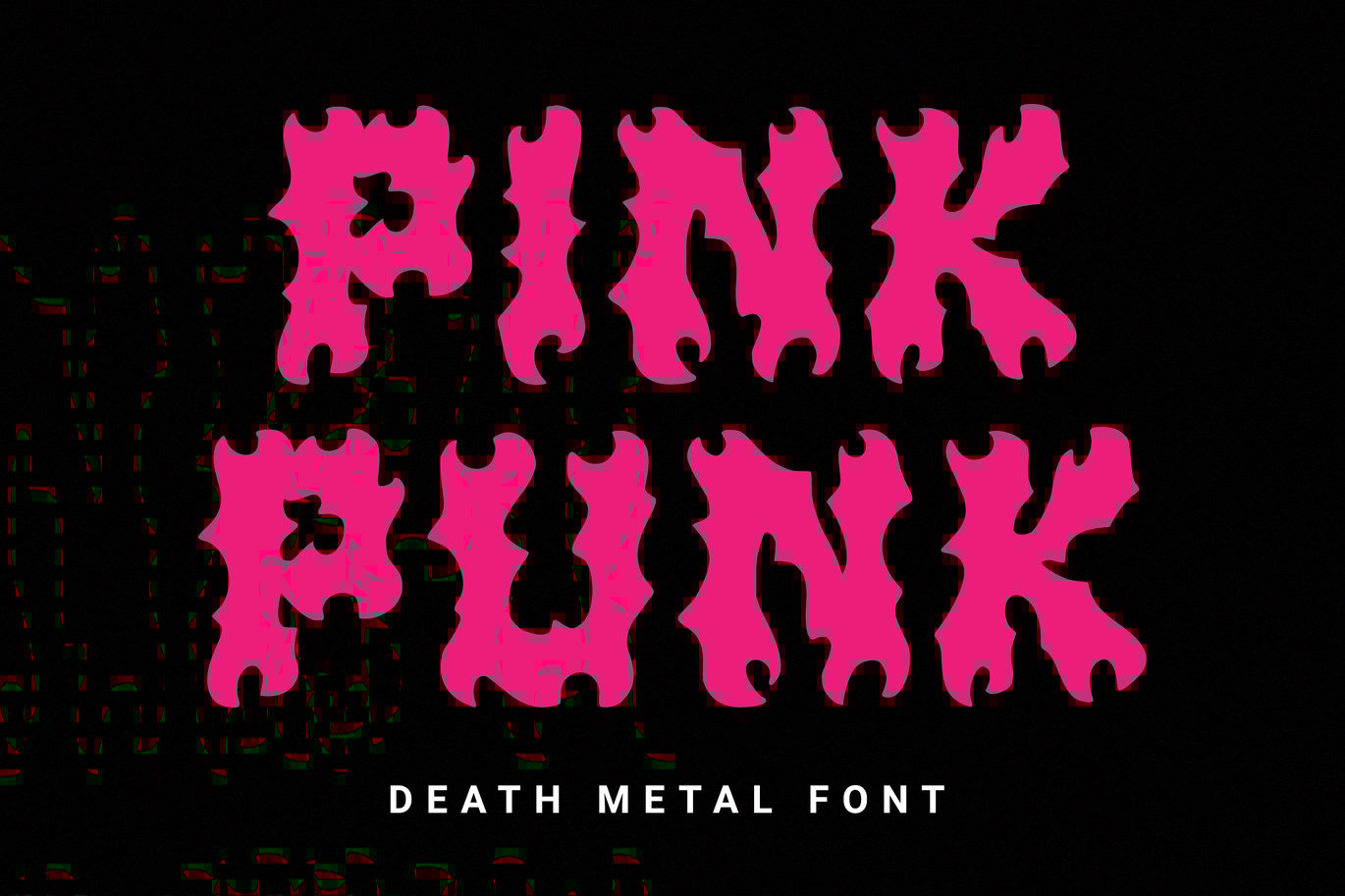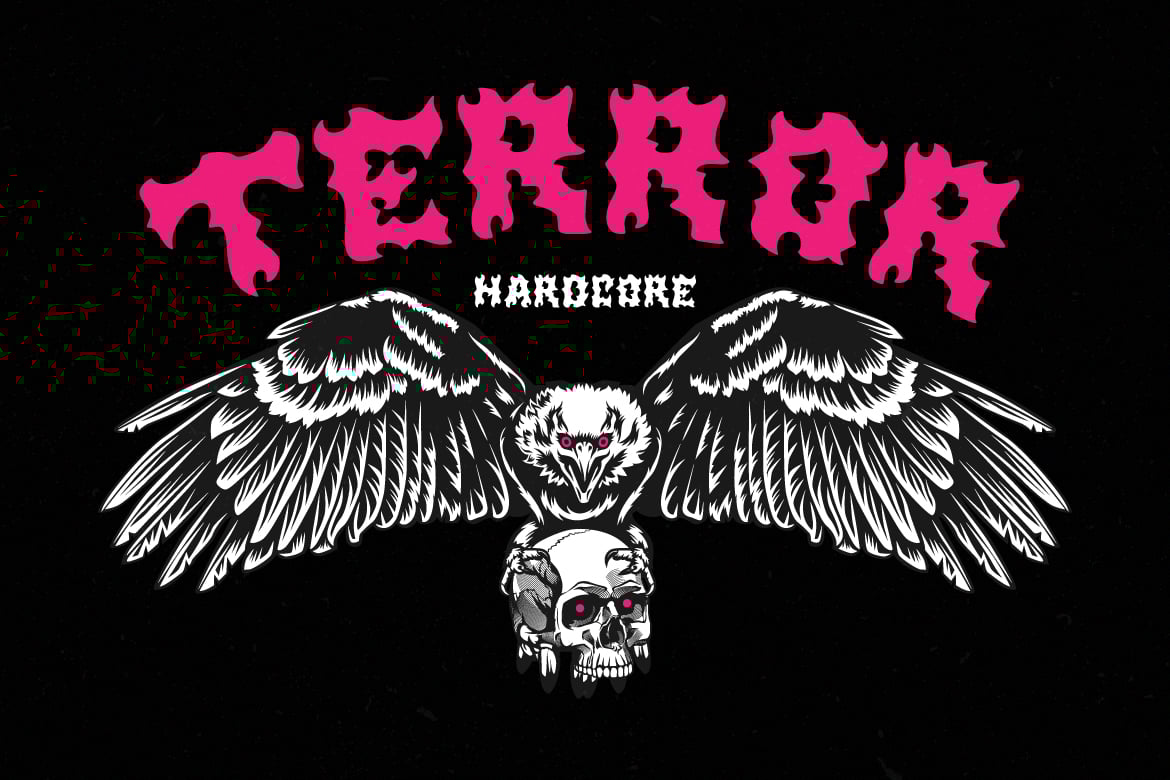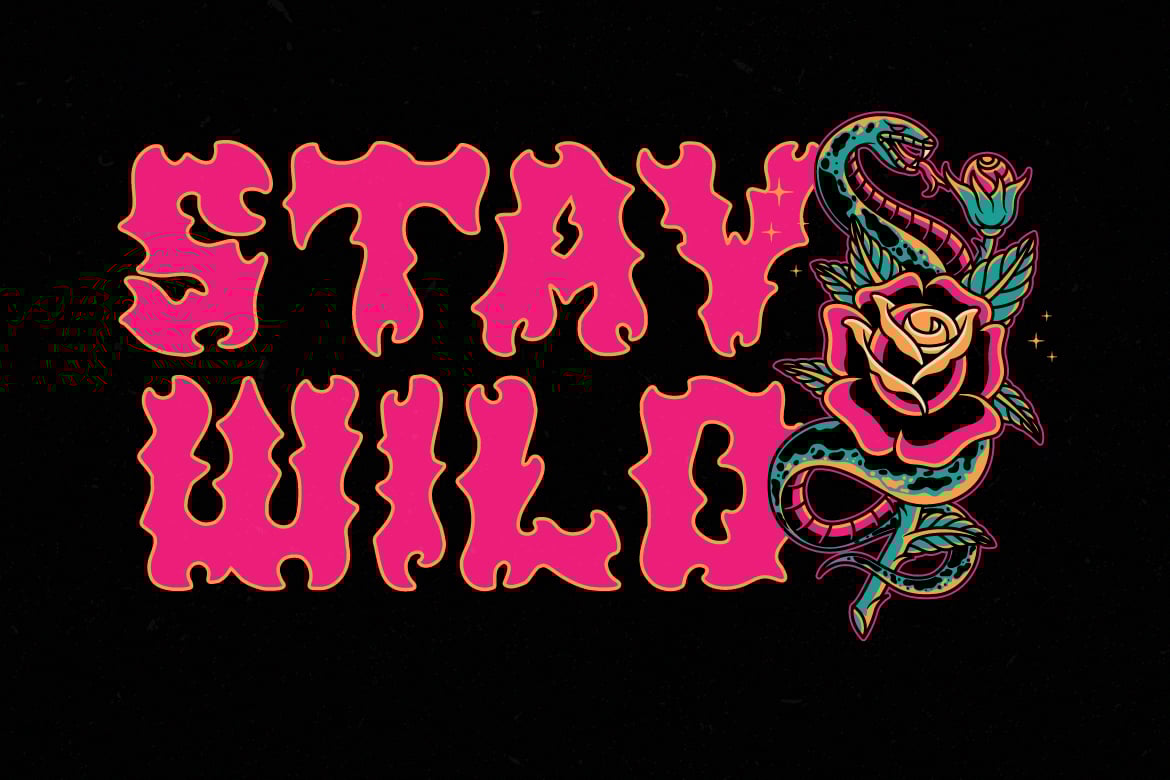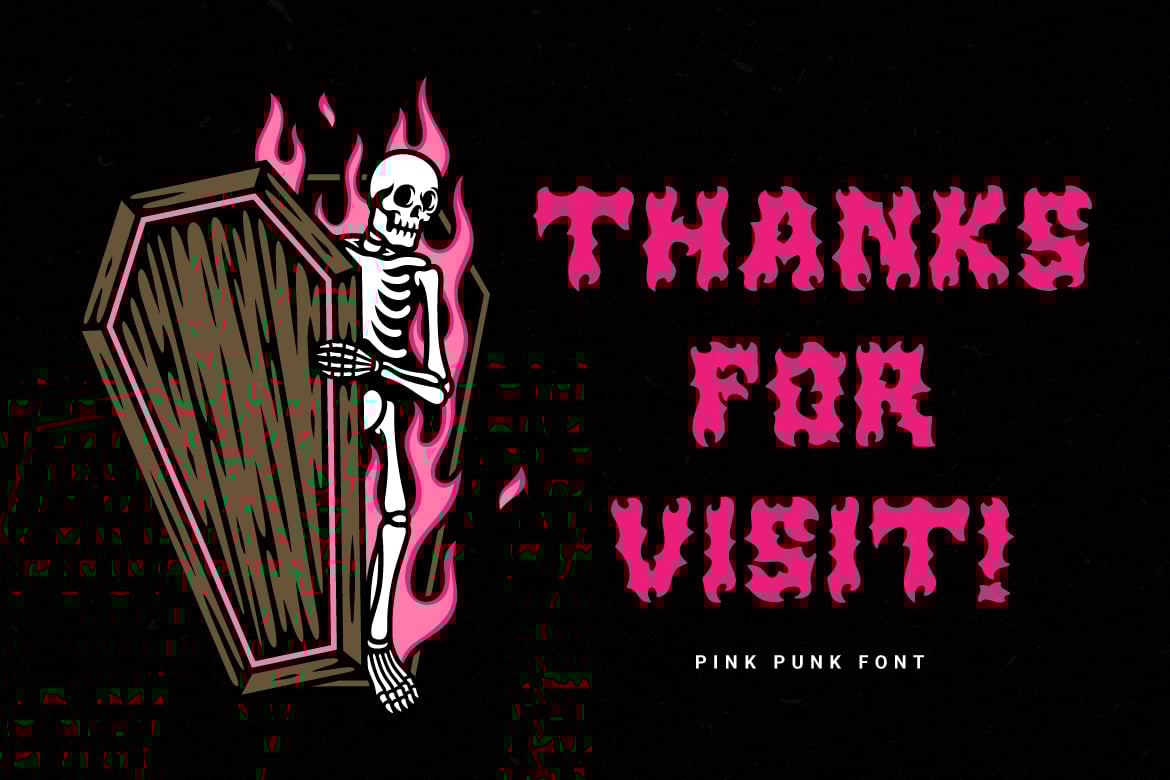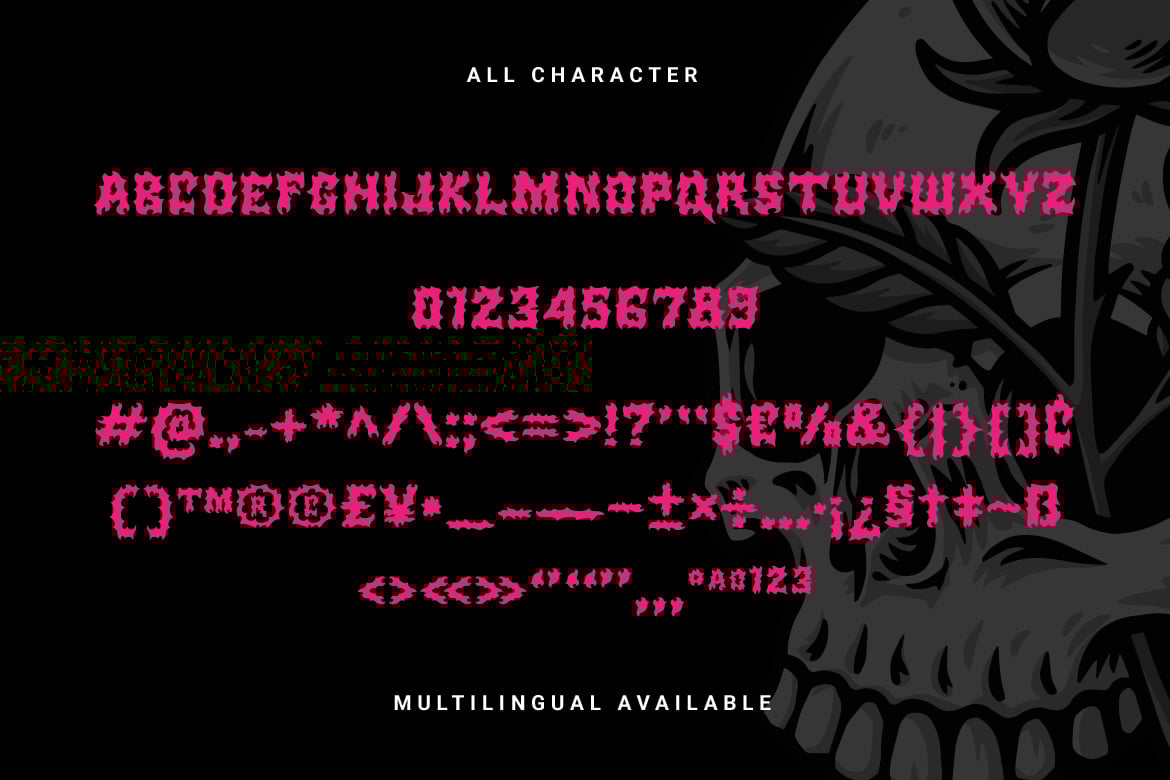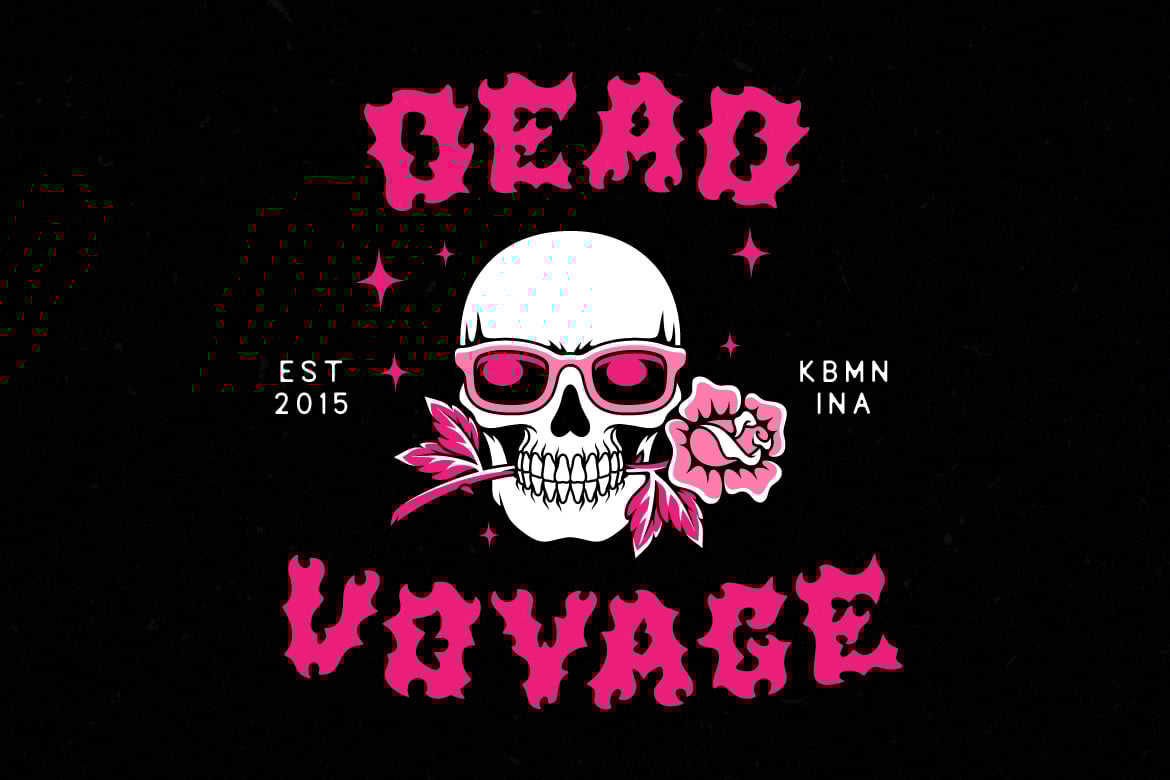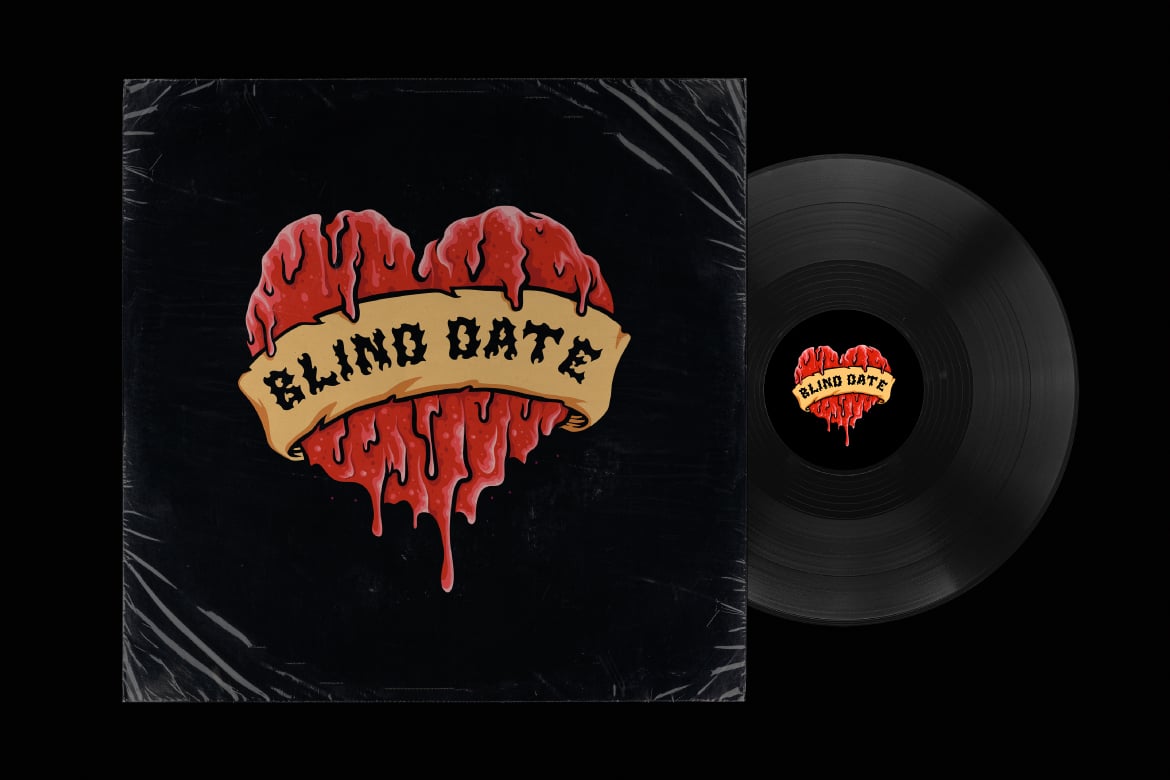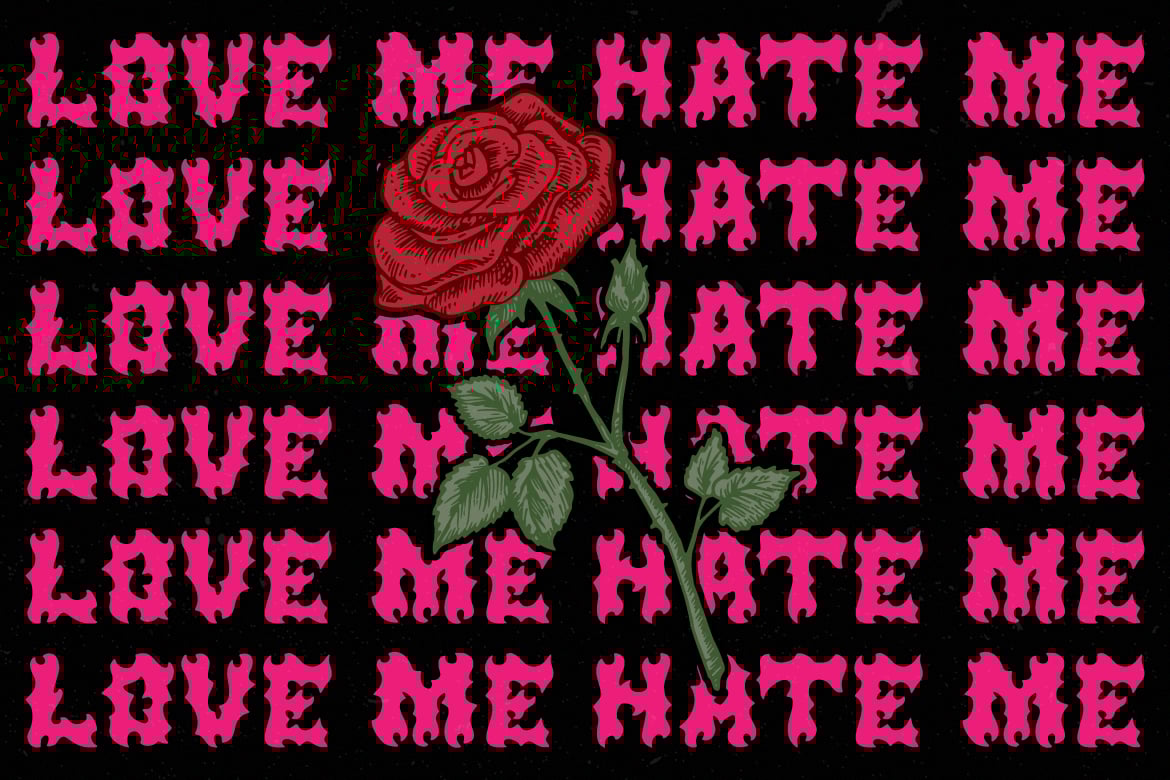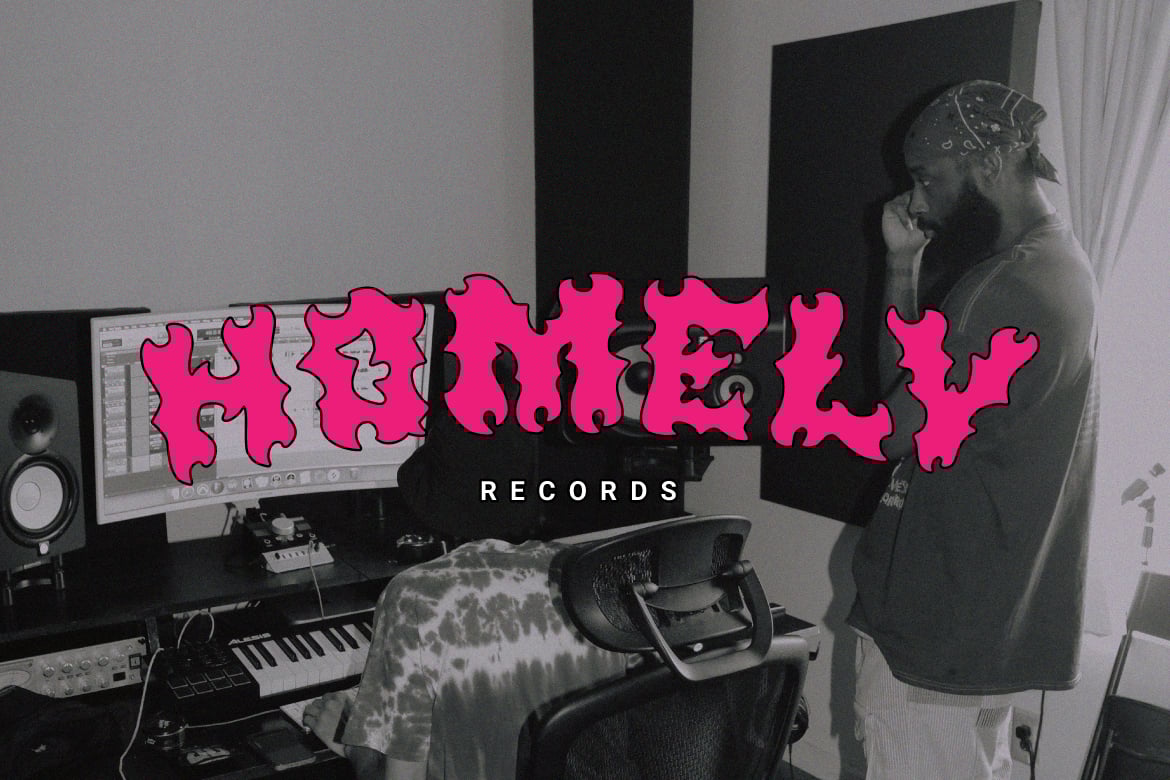
Pink Punk – Death Metal Font
Keep burning with the new typeface. “Pink Punk” is a loud music-style display font that’s simple but still scary and fierce. Suitable for those of you who want to create a loud music-style display design but still easy to read. Great for logo designs, posters, merchandise or covers.